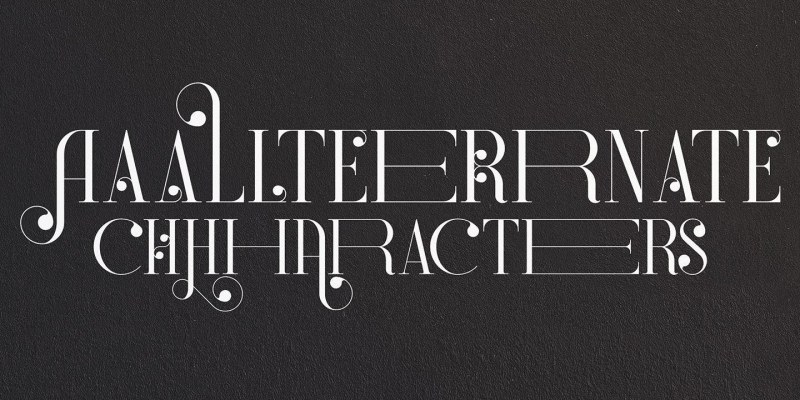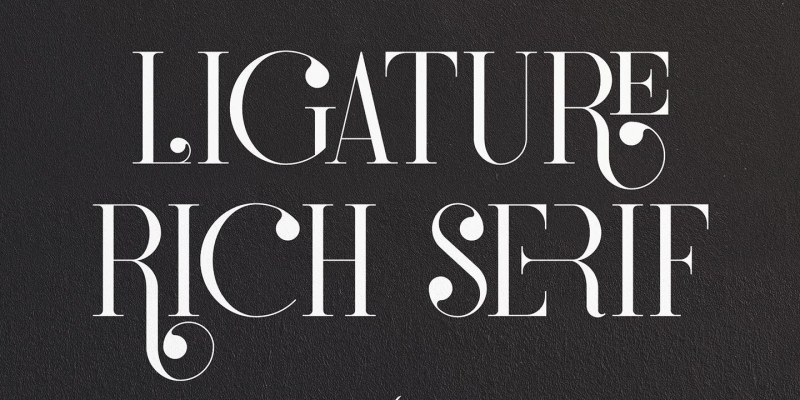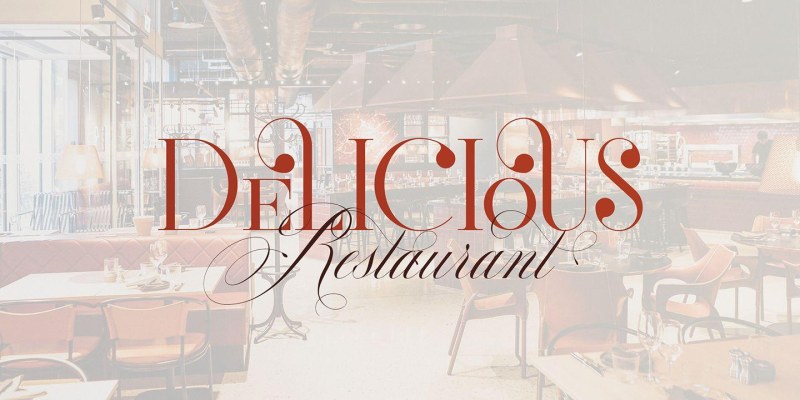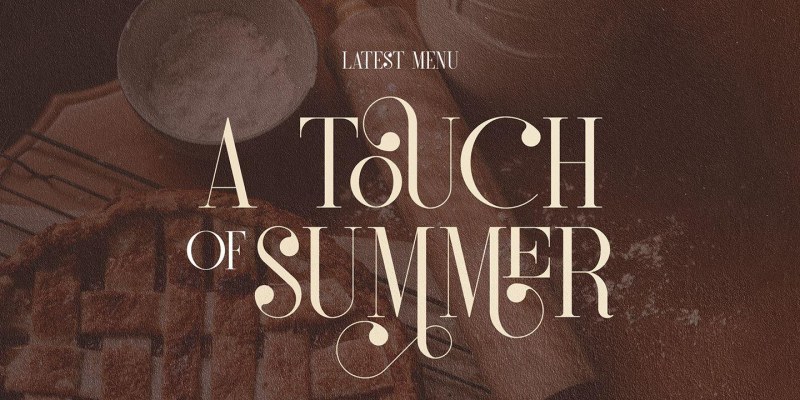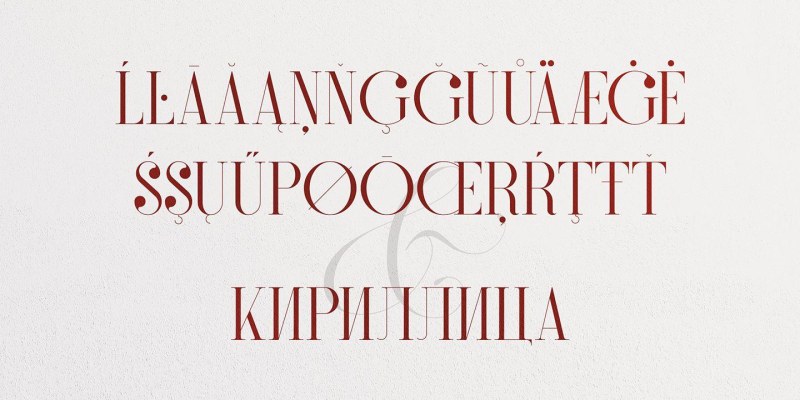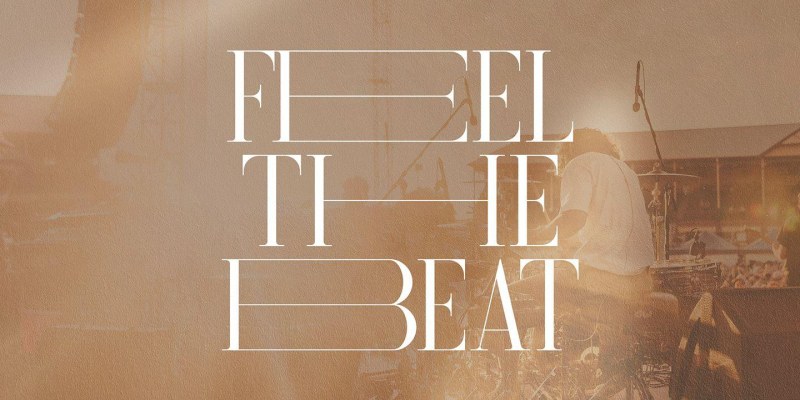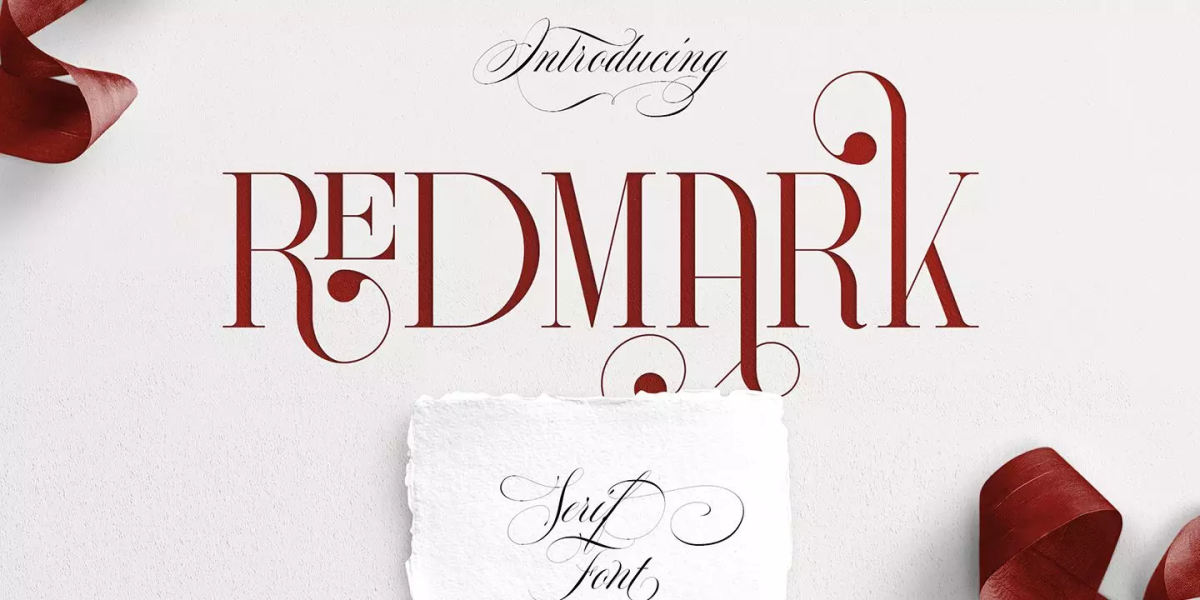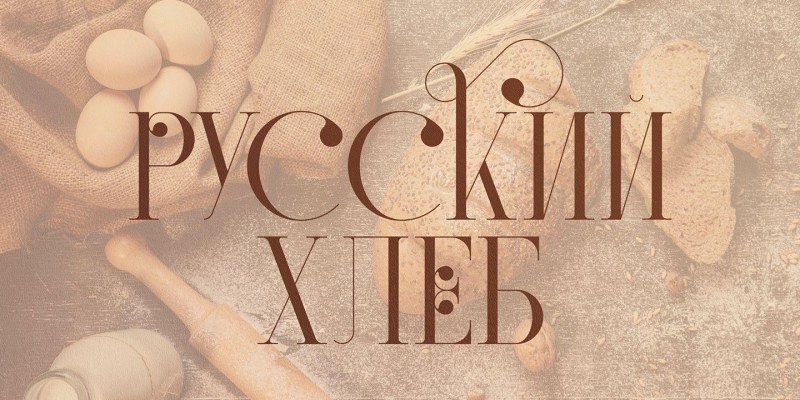
Redmark Font
Introducing Redmark – Elegant all caps serif font. Redmark is vintage yet clean font inspired from 80s typeface loaded with alternate and ligature glyphs to make you typography truly unique!
Redmark Font gives long-form text a classic, trustworthy rhythm — ideal for magazine spreads, annual reports and book interiors.
Pair Redmark Font with generous letter-spacing for wordmarks in fashion, hospitality, wine and jewellery branding.